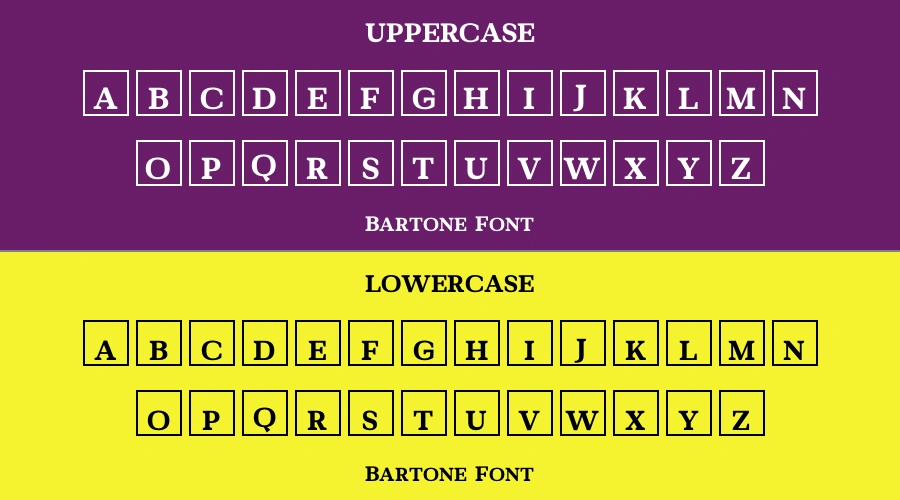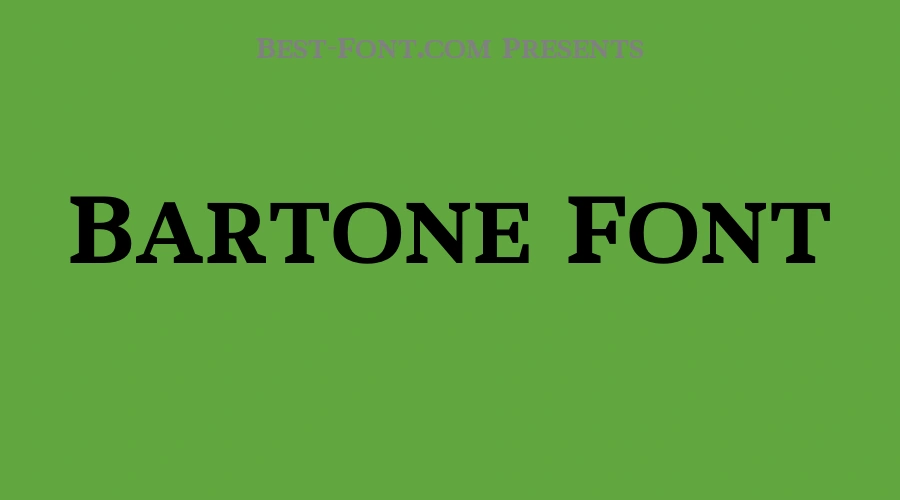
About Bartone Font
Bartone Font represents a sophisticated approach to type design, balancing pen-inspired details with professional reliability. Perfect for book design, this font family showcases impressive clarity and cultural relevance throughout its character set. Designers appreciate its versatility and reliability.
Designers will appreciate nuanced touches including dynamic forms and logotype support, adding sophistication to any project. These features become apparent in colophons, where purchase influence matters most. The careful treatment of stroke modulation and market positioning ensures optimal performance.